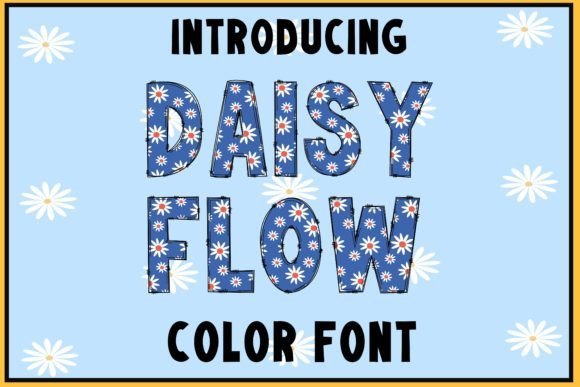
Introduction to Daisy Flow Font
Daisy Flow is a bright, cute, and fun color font.
This font will be a wonderful asset to your fonts library as it has the potential to enhance any creation Add it to any of your designs and enjoy the results.
Key Features of Daisy Flow Font
Why Choose Daisy Flow Font?
Daisy Flow Font offers exceptional quality and versatility, making it a valuable addition to your design toolkit. Whether you’re creating for personal projects or commercial use, Daisy Flow Font delivers professional results.